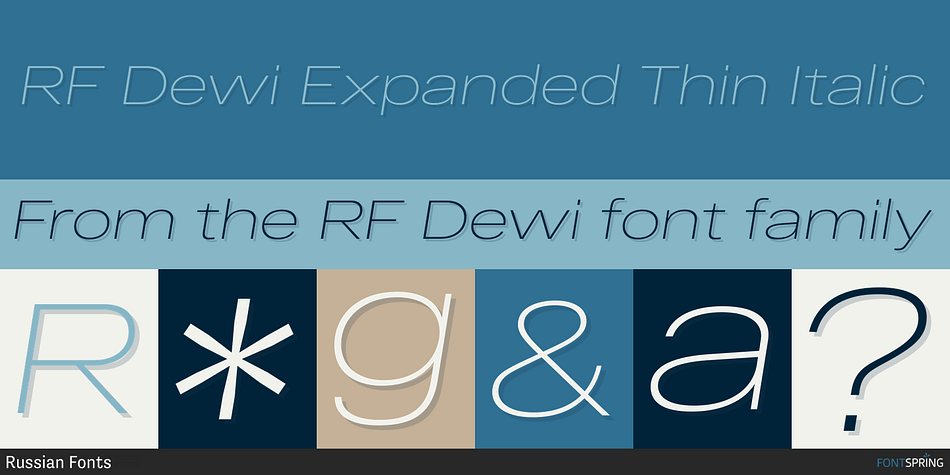
RF Dewi Expanded Thin Italic
Designed by Misha Panfilov, RF Dewi is a sans serif font family. This typeface has sixty-four styles and was published by Russian Fonts.
Dewi is a modern neo-grotesque multi-typeface family with closed forms. It includes 4 versions: condensed, normal, extended, expanded. In each version there are 16 font styles: 8 regulars and 8 italics (64 styles in total). The family contains weights from thin to black. Everything is ready to solve absolutely any graphic tasks.
Dewi helps to create a unique and vibrant design consonant with the spirit of our days. Сontours remains neutral in a small size but when you work with large sizes Dewi shows his strong and confident character. Ideally suited for web design, logos and branding, navigation, printing, advertising and packaging, infographic, poster design, music covers and so many more. This typeface will be a real workhorse for you.